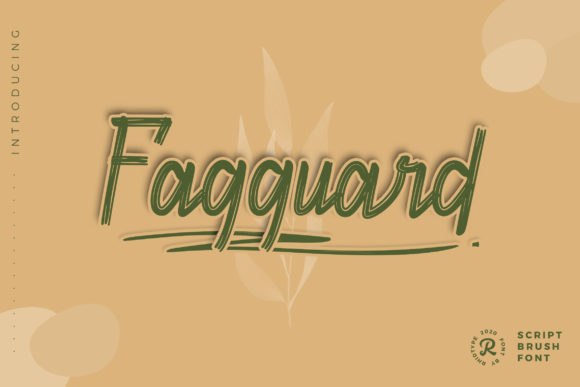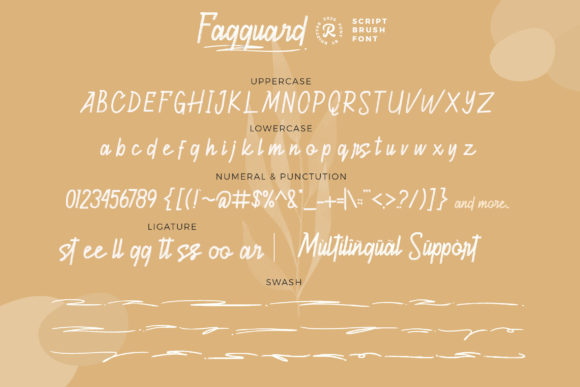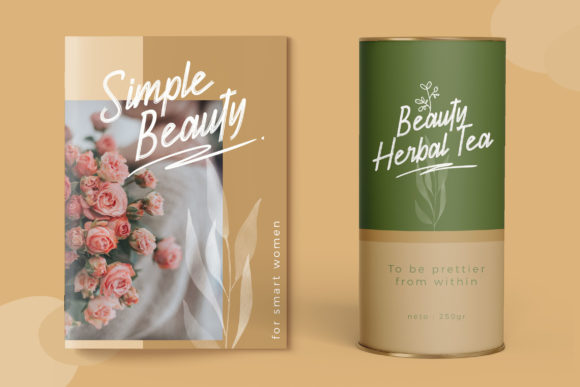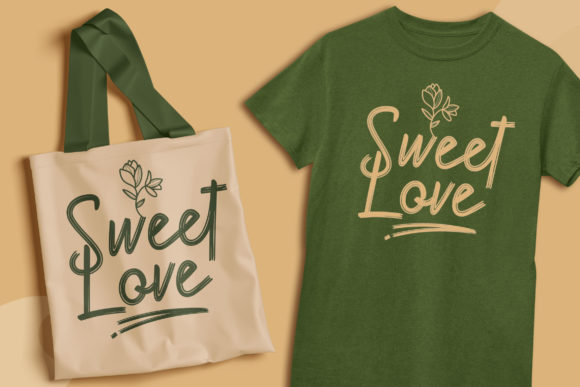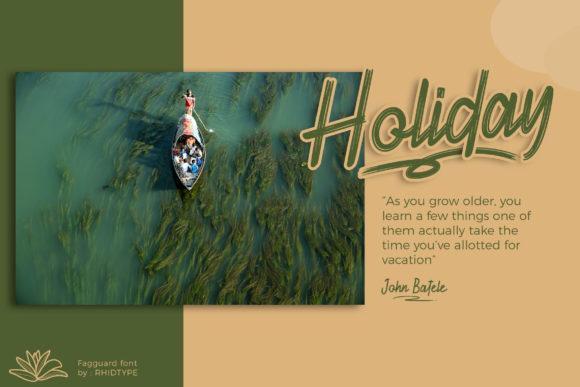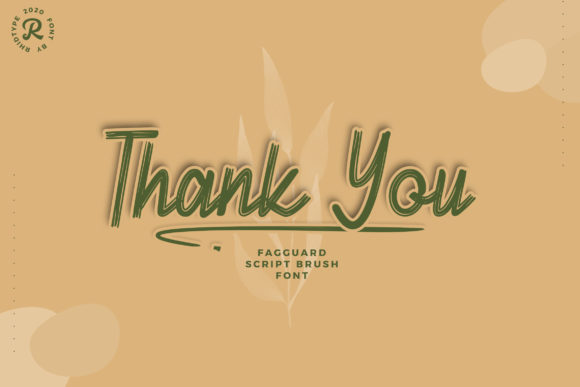
Fagguard Font
About Fagguard Font
Fagguard is a stylish and delicate brushed script font. It is suitable for any branding, product packaging, invitation, quote, t-shirt, label, poster, logo that you wish to develop. This font is PUA encoded which means you can access all of the glyphs and swashes with ease!